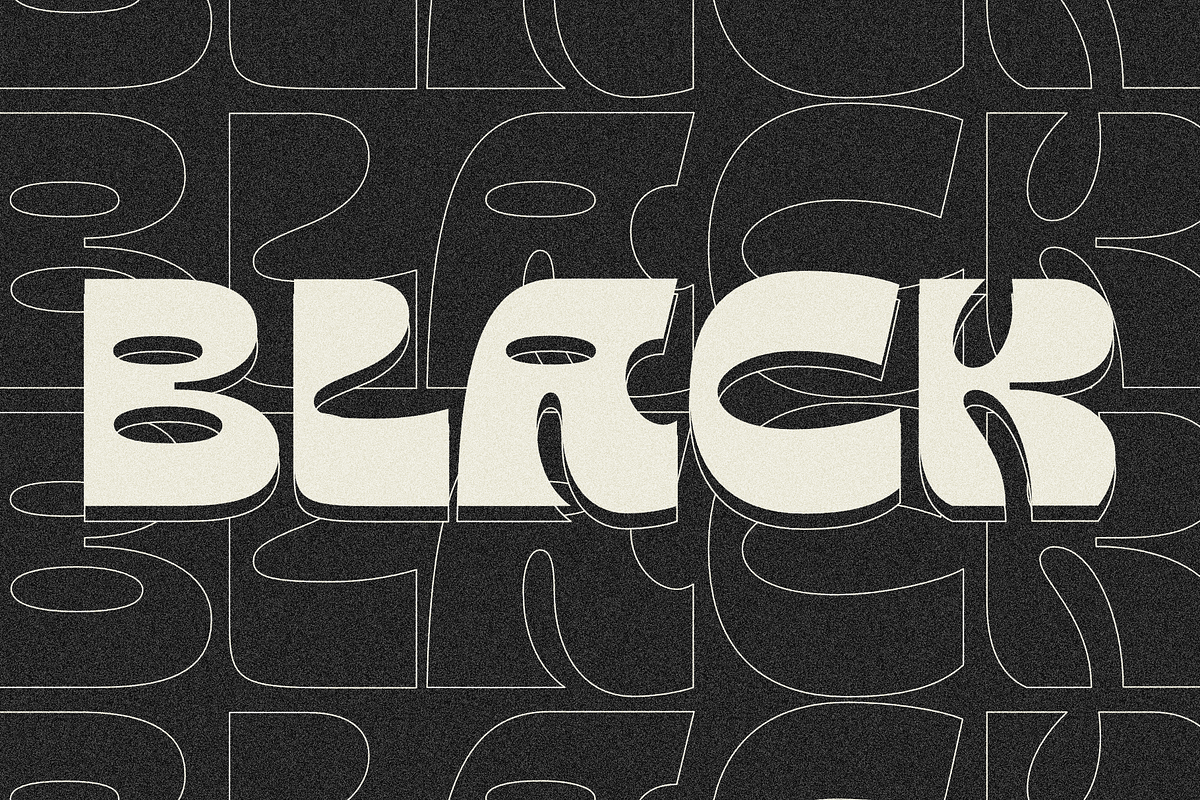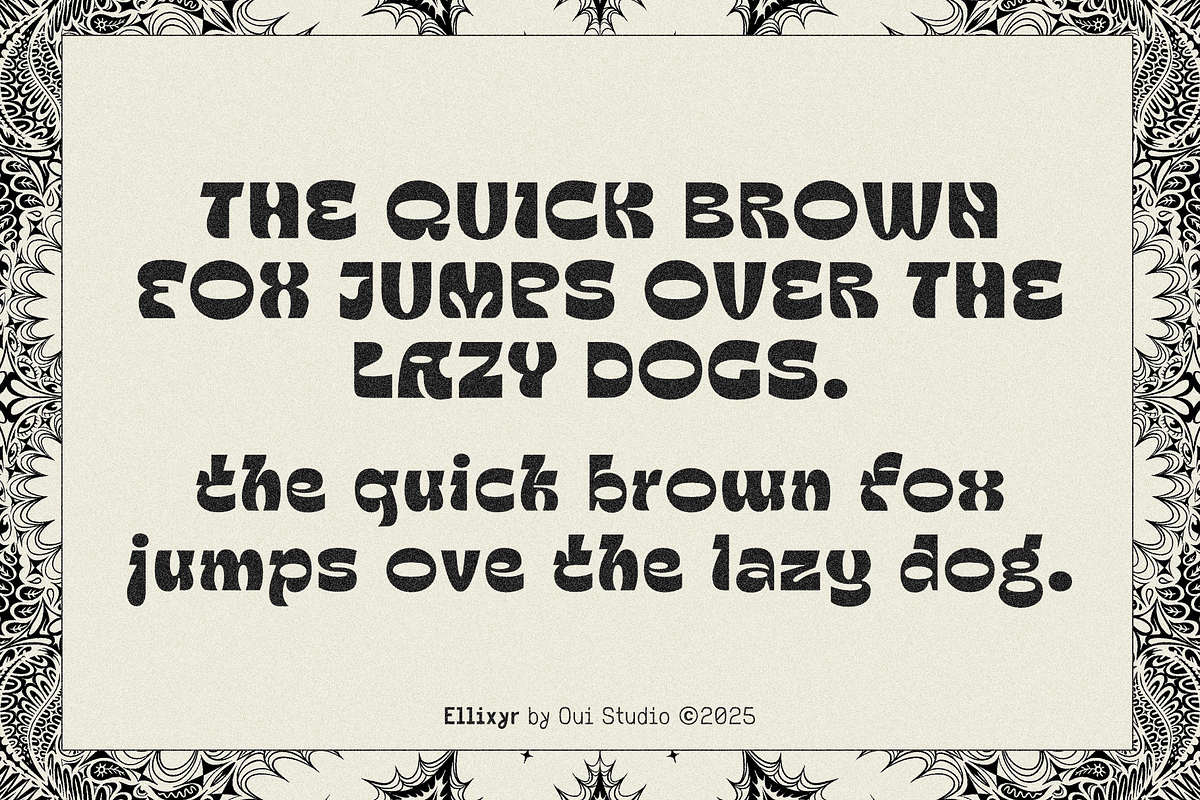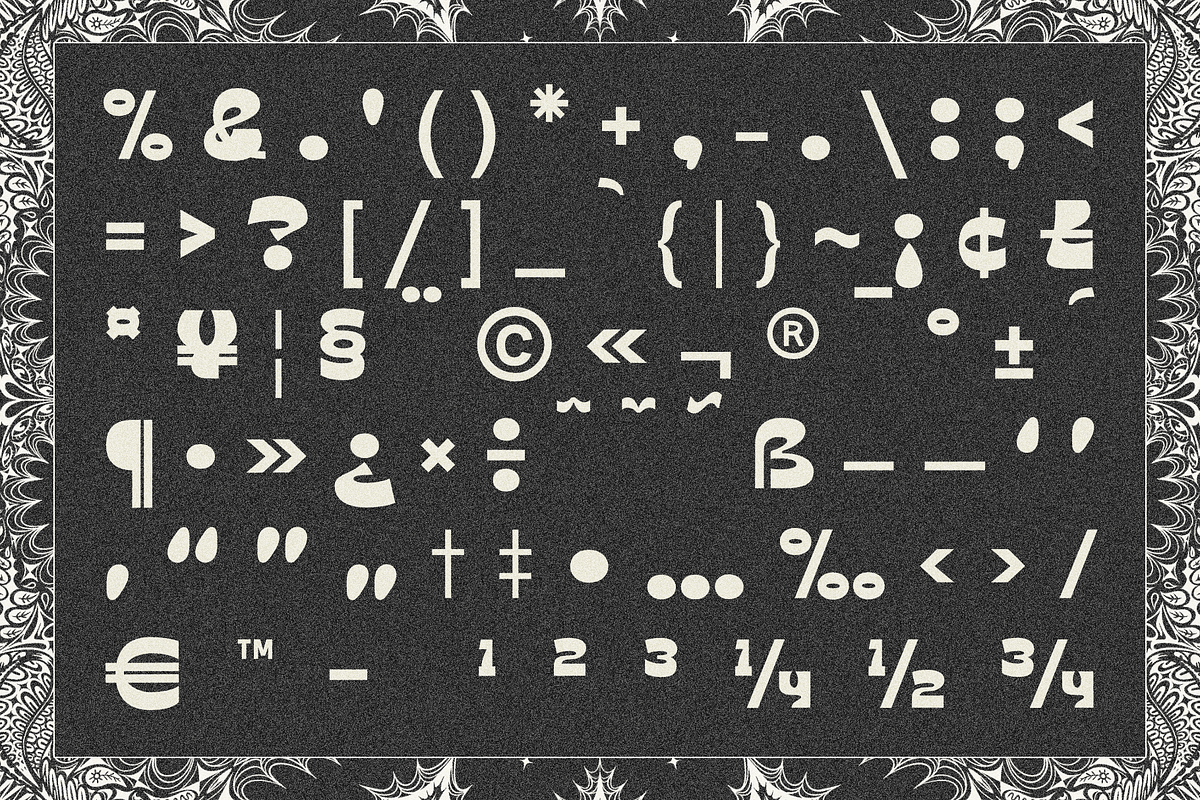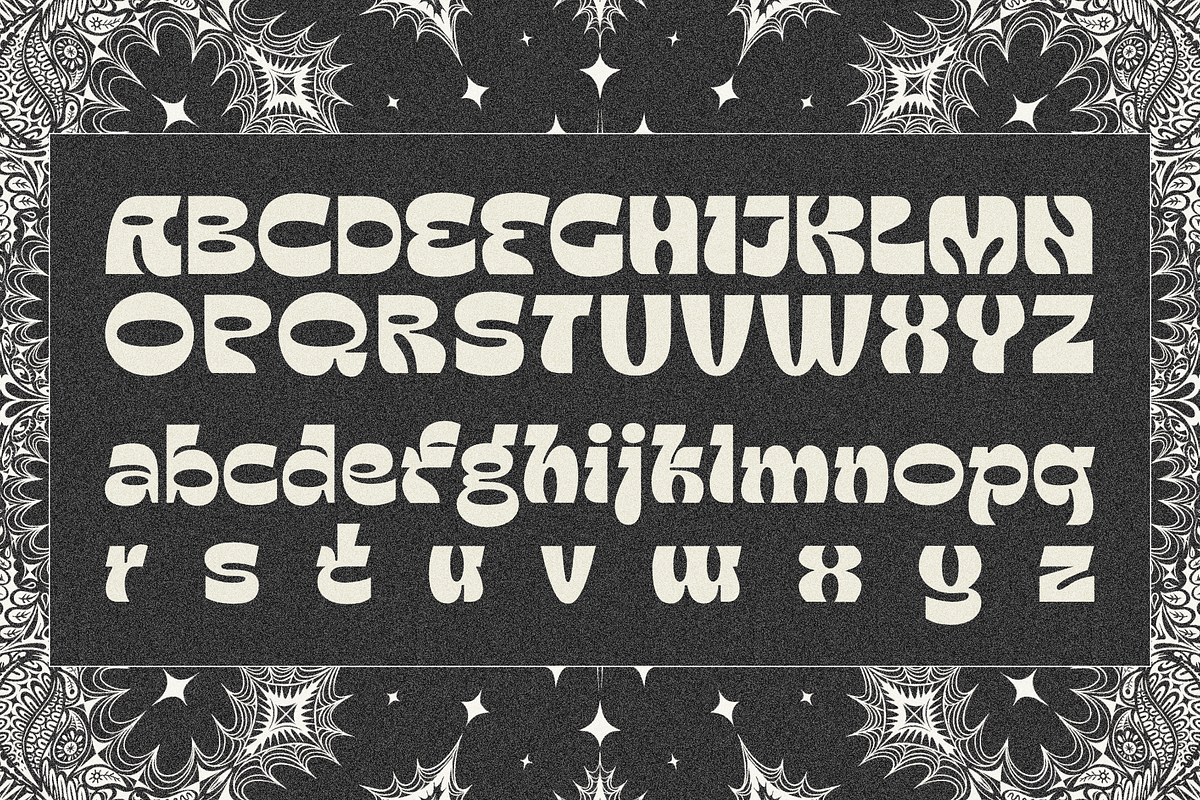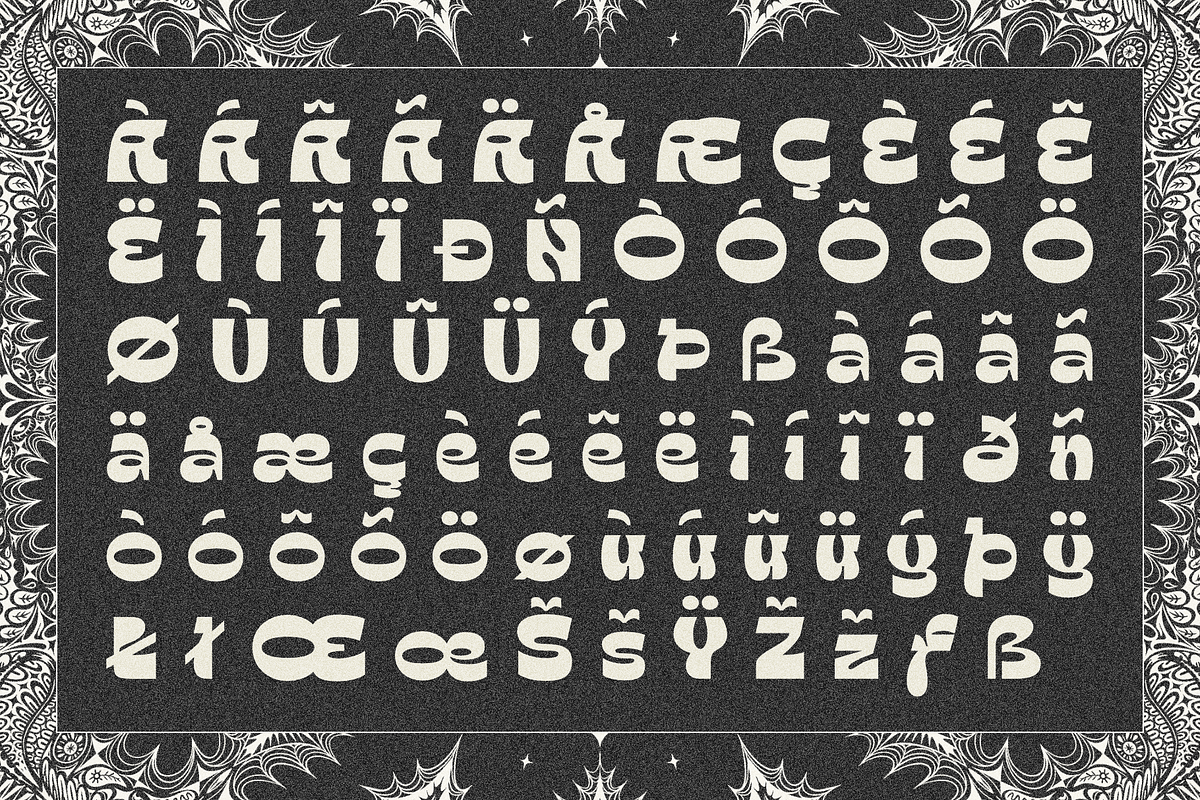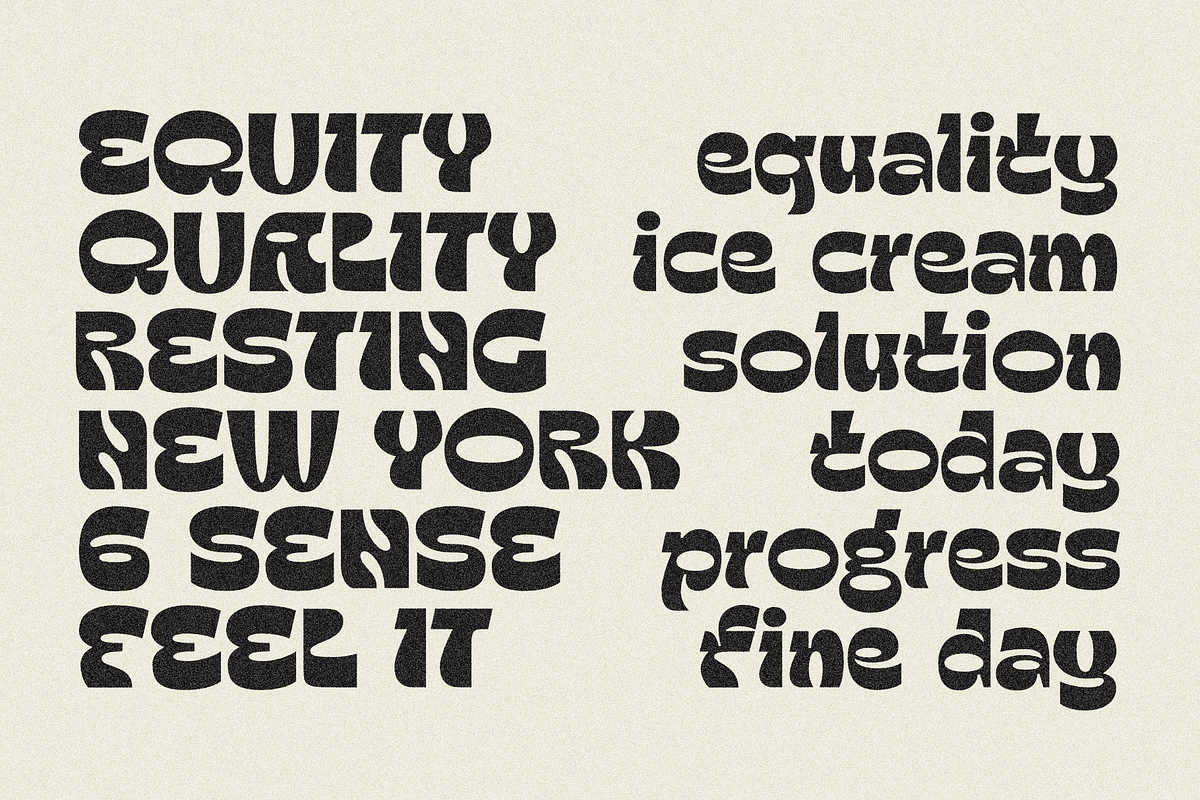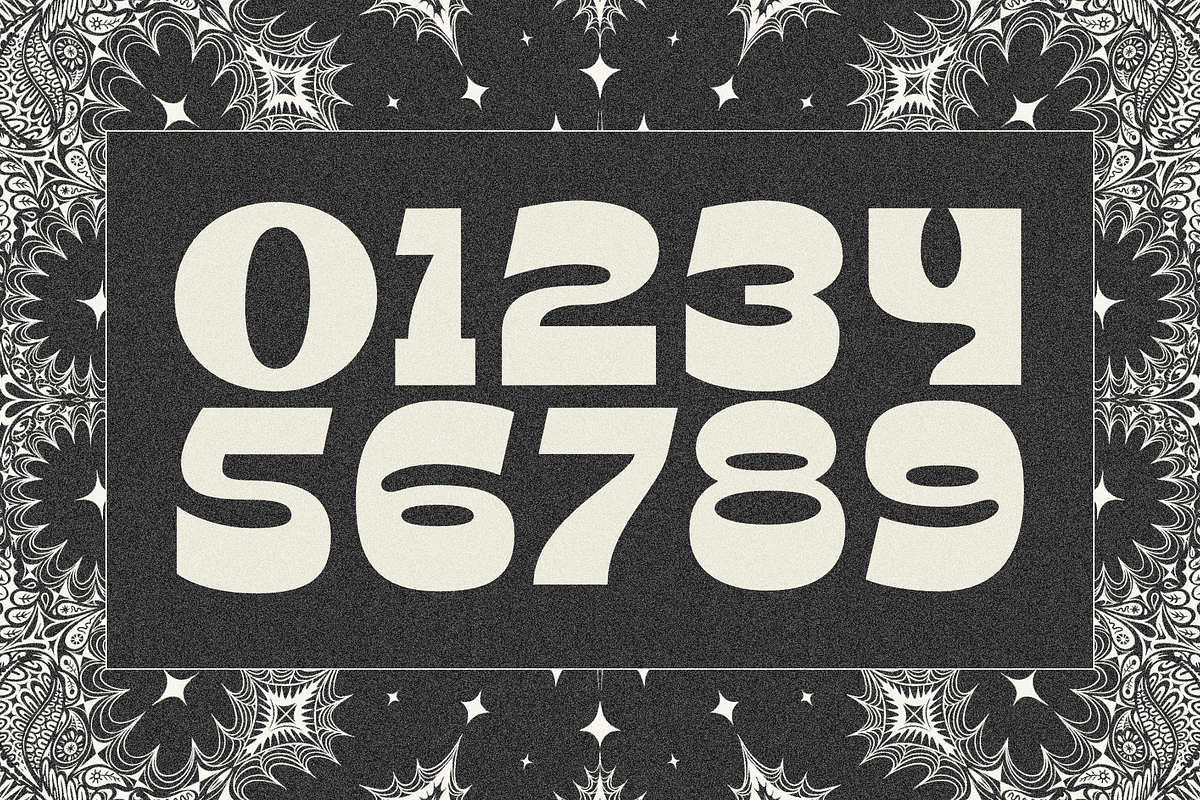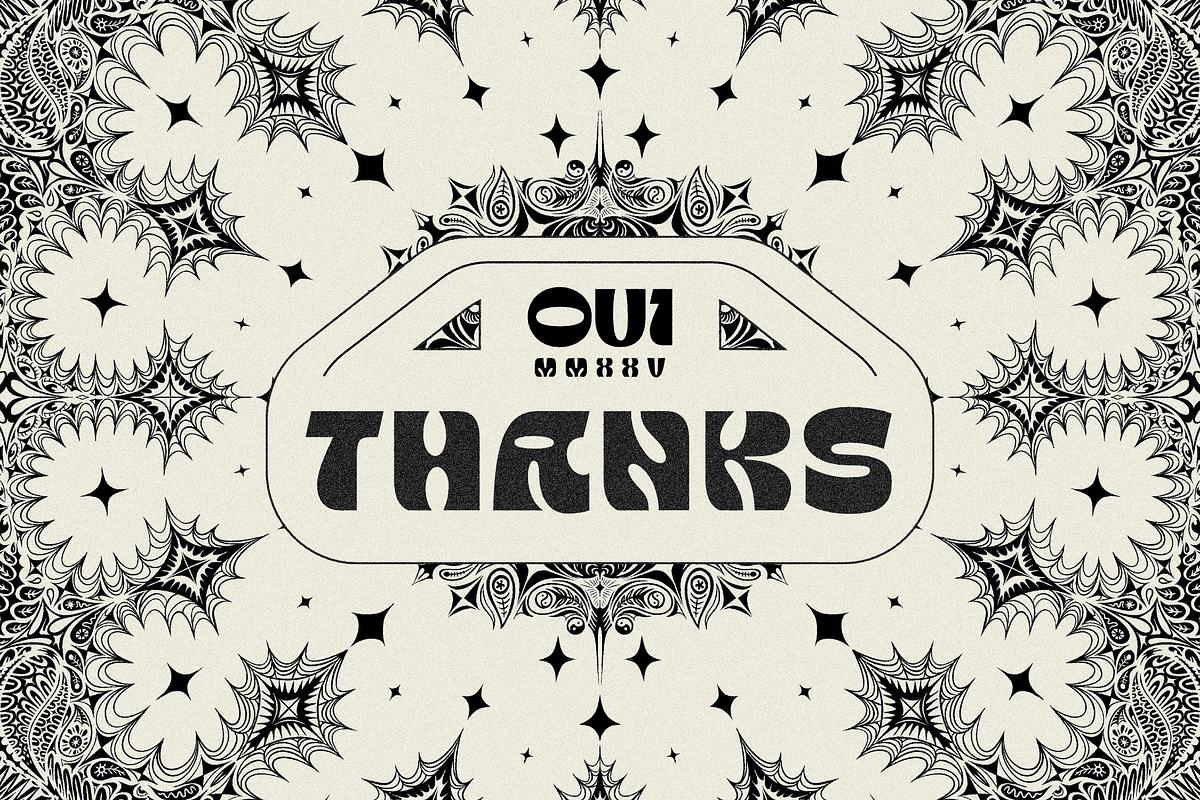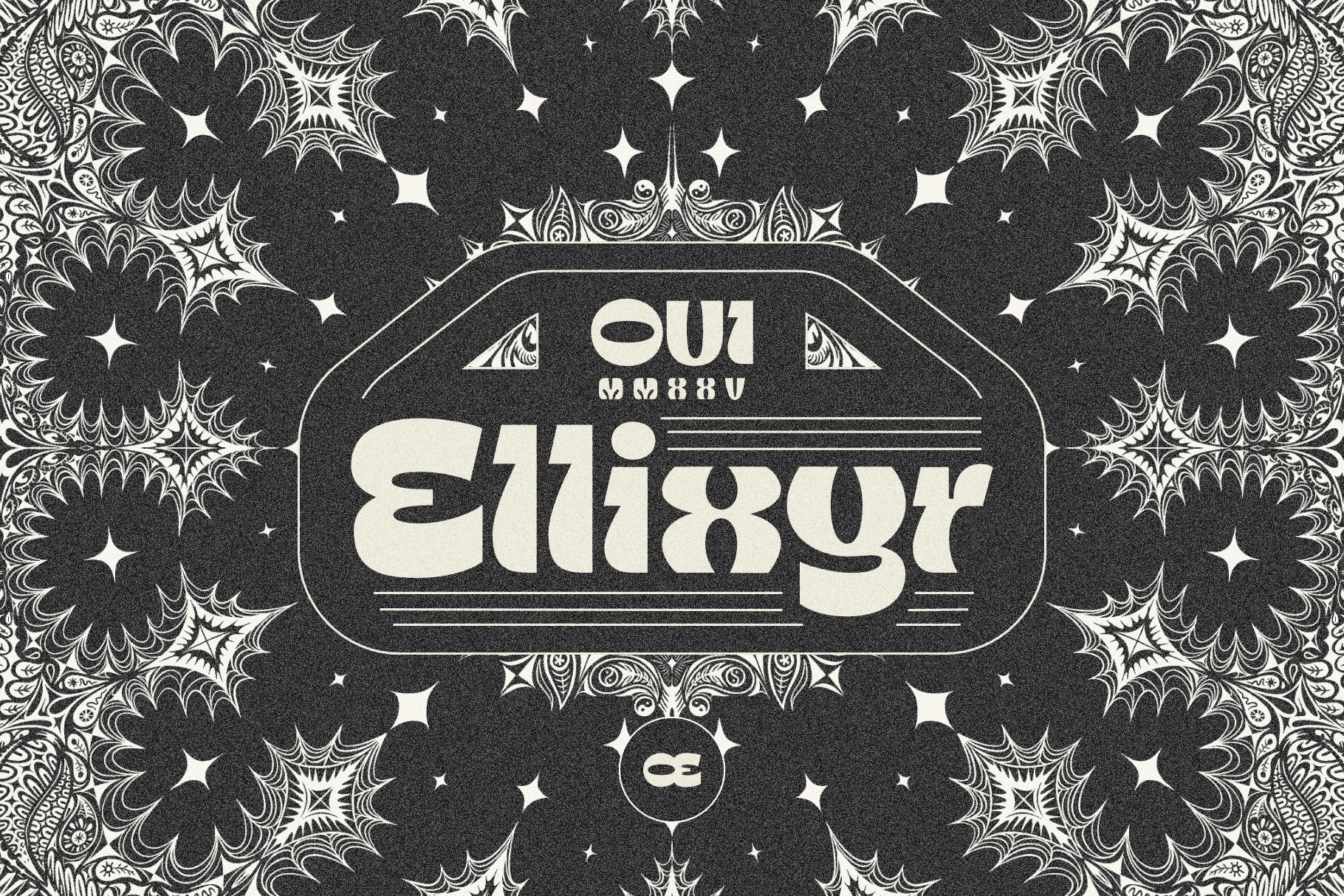
Oui Ellixyr Psychedelic Display Font
Oui Ellixyr is a bold retro-inspired display font that blends vintage psychedelia with a touch of futuristic charm. Its thick, curvy letterforms and subtle geometric cuts create a dynamic rhythm that feels both nostalgic and modern. The font captures the spirit of 70s poster art and cosmic design, making it perfect for projects that want to stand out with a sense of groovy elegance and visual impact. Every curve and contour has been crafted to exude character, making Oui Ellixyr a true eye-catcher in any layout.
Whether you’re designing an album cover, a fashion logo, or a dreamy poster, Oui Ellixyr transforms words into visual art. It shines in large-scale typography and pairs beautifully with minimalist compositions or intricate patterns. Bring a wave of retro mystique and bold creativity to your work — Oui Ellixyr is the perfect potion for designers seeking that timeless, psychedelic allure.